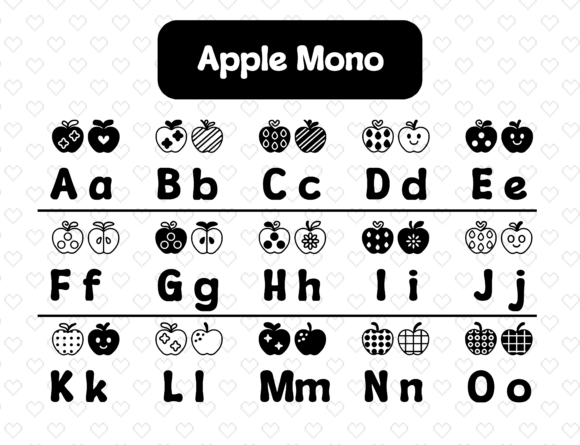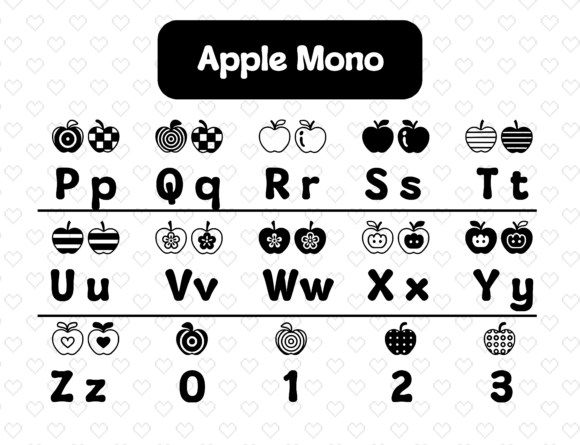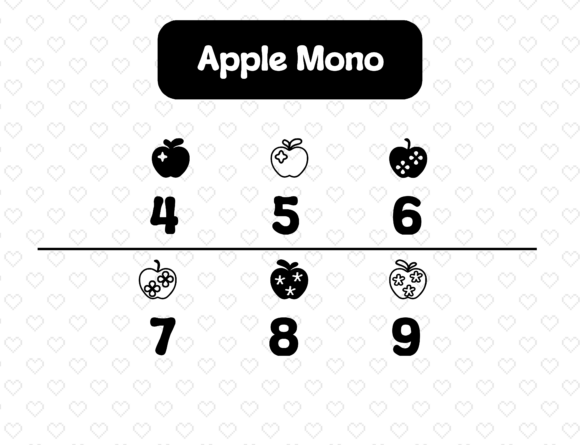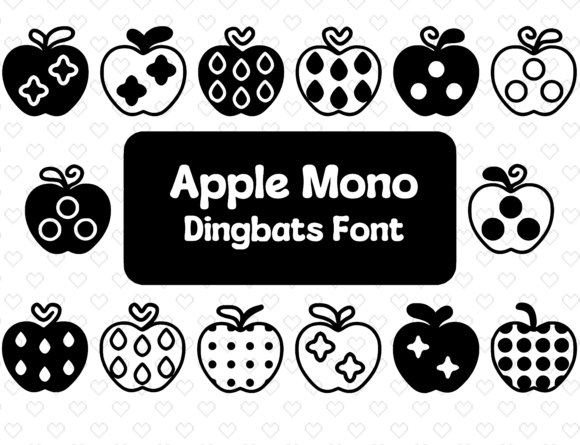
Introduction to Apple Mono Font
A charming Dingbats font filled with a variety of hand-drawn apple illustrations Perfect for labels, packaging, stickers, greeting cards, educational materials, and creative projects.
A charming Dingbats font filled with a variety of hand-drawn apple illustrations Perfect for labels, packaging, stickers, greeting cards, educational materials, and creative projects. 🍎 Easy to use —
Key Features of Apple Mono Font
Why Choose Apple Mono Font?
Apple Mono Font offers exceptional quality and versatility, making it a valuable addition to your design toolkit. Whether you’re creating for personal projects or commercial use, Apple Mono Font delivers professional results.